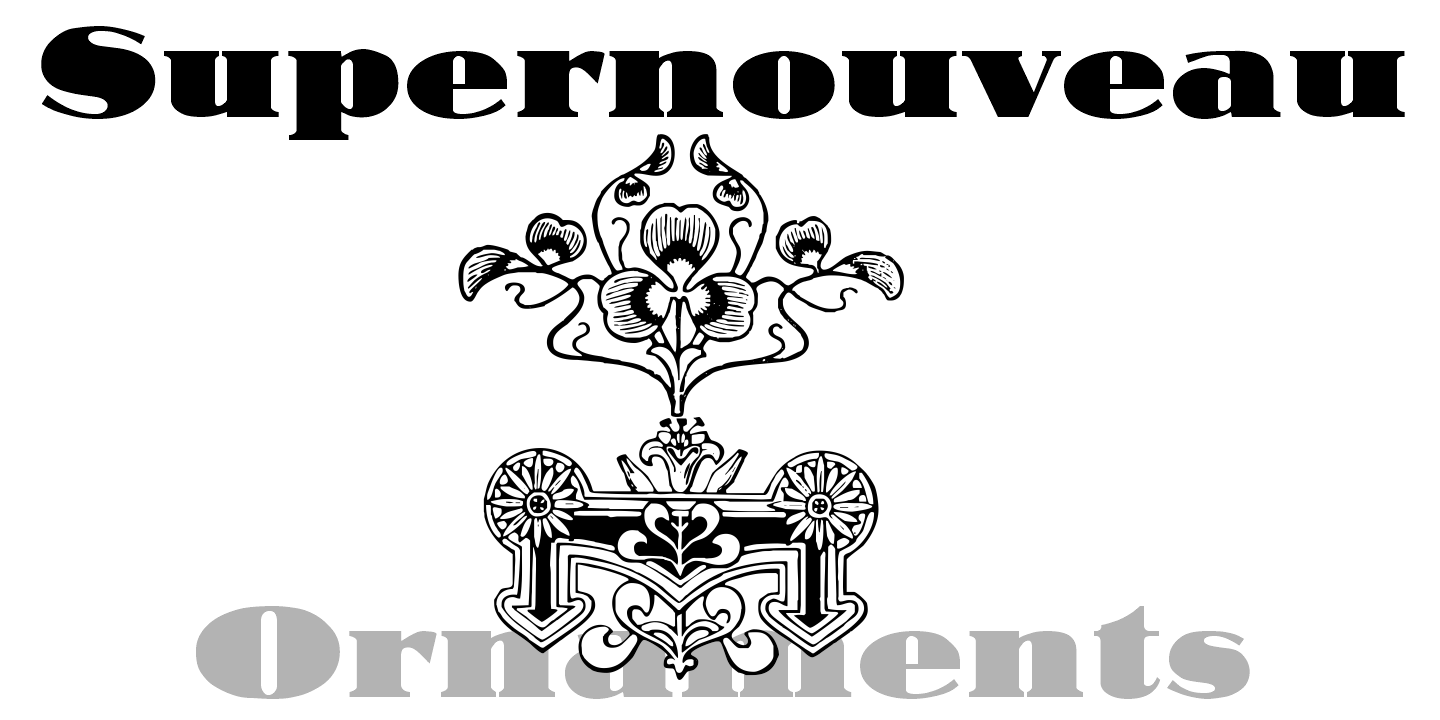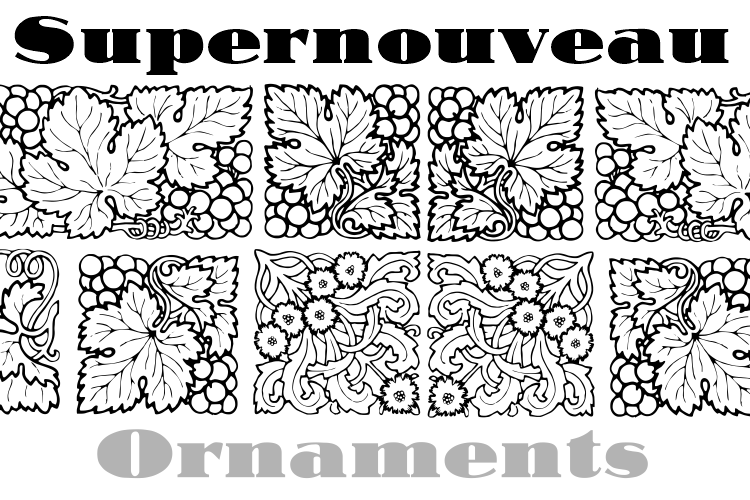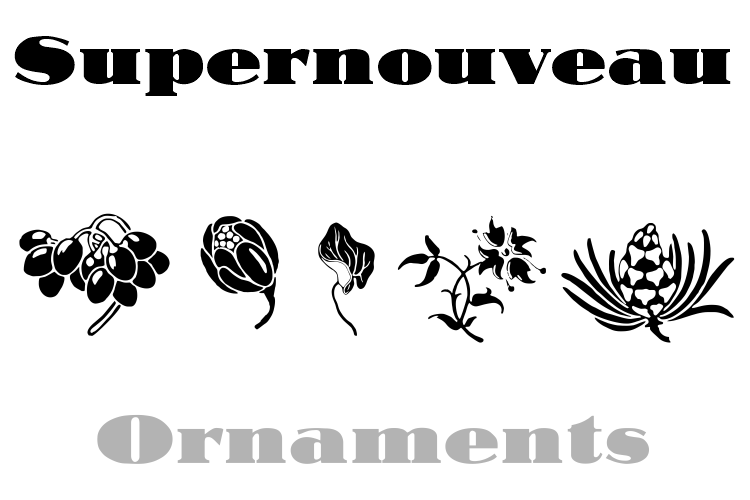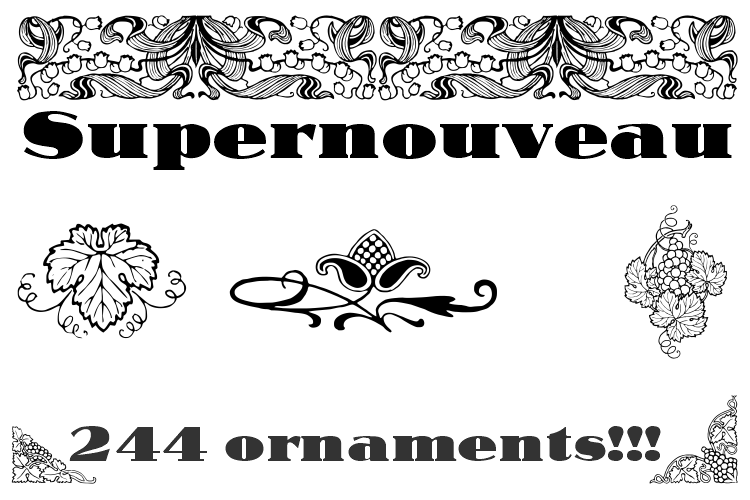
About Supernouveau
Supernouveau is a handfull and easy to use font with 244 pieces of art nouveau elements of decoration : frames, cuts, tailpieces, headpieces among others… Ready to use to make patterns, book coovers, publishing design, package material and all you need…